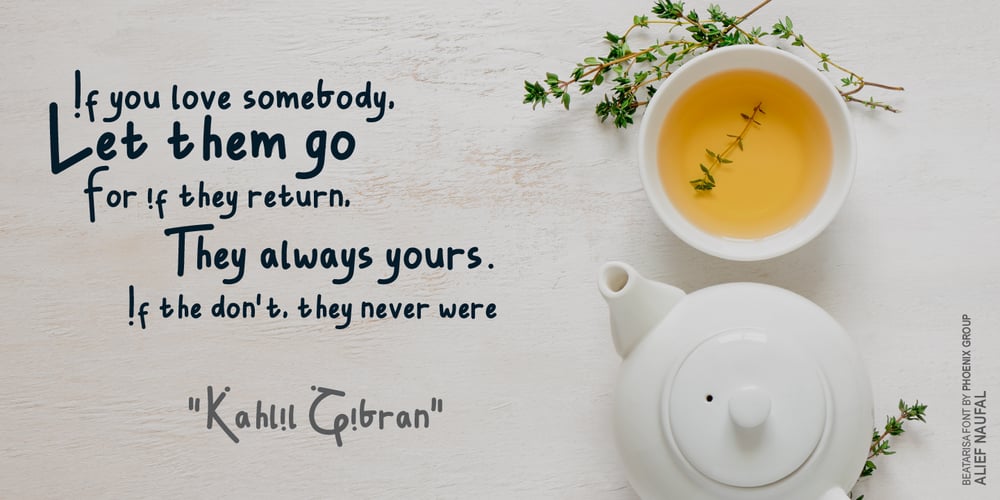
Beatarisa Font Family was designed by Alif Naufal Muzakki and published by Phoenix Group. Beatarisa contains 1 styles and family package options. Beatarisa is inspired by my handwriting. This font is feminine and playful, you can use it in various categories including making banners and posters etc. The name “Beatarisa” derived from Hawai language and means “he who brings happiness”. We hope this font can be a source of happiness for everyone who uses it.